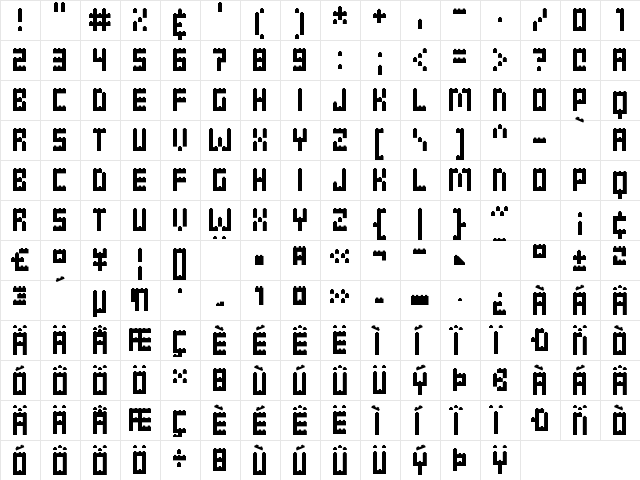
Clicky Bricks Regular
| Designer | GameDevDan |
Design Context for Clicky Bricks Typeface
Clicky Bricks takes a measured approach to typography — its balanced proportions and neutral character make it a reliable workhorse for both digital and print work.